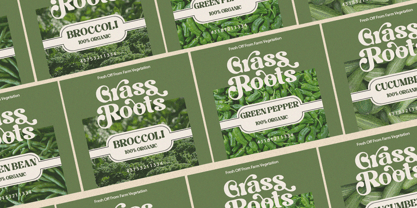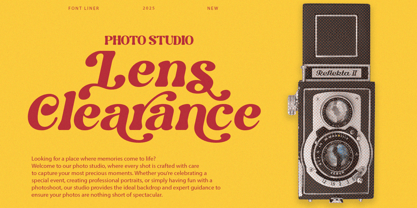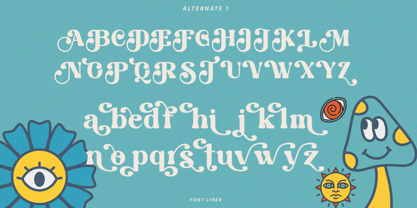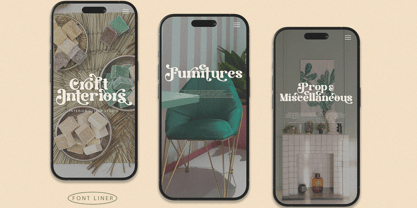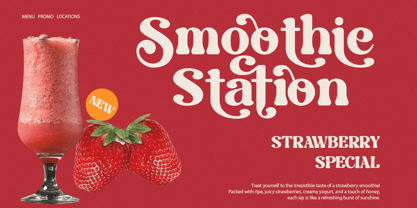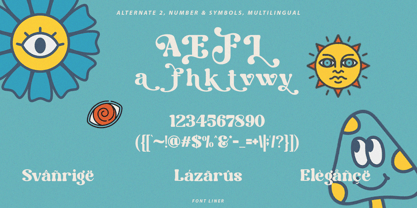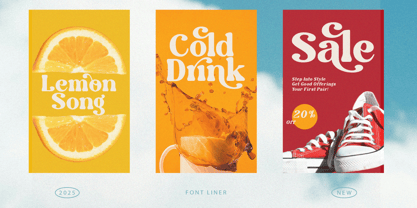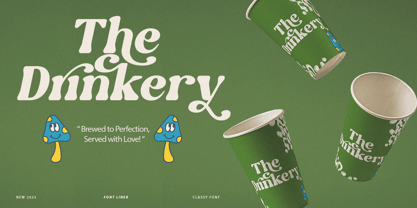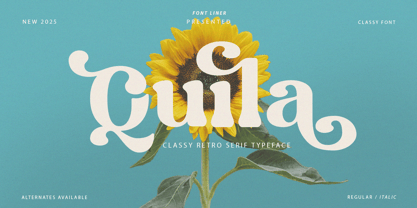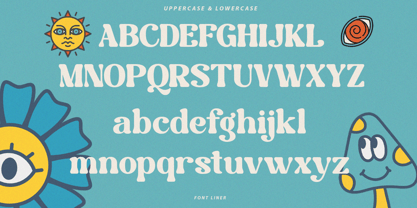
Quila
by Font Liner
The Quila Font Family was designed by Ghina Luthfiarieska and published by Font Liner. Quila contains 2 styles and family package options.
Quila is a Classy Retro Serif Font. Create bold, gorgeous headlines and elegant designs with a vintage flair. George's contrasting lines and curved terminals give a sleek, elegant look to logos, holiday cards, wedding invitations, quotes, advertisements, and more.
Quila has regular and italic with full set of modern uppercase and lowercase letters, numerals, punctuation, also multilingual symbols. It included opentype features like ligature, alternate and many others.